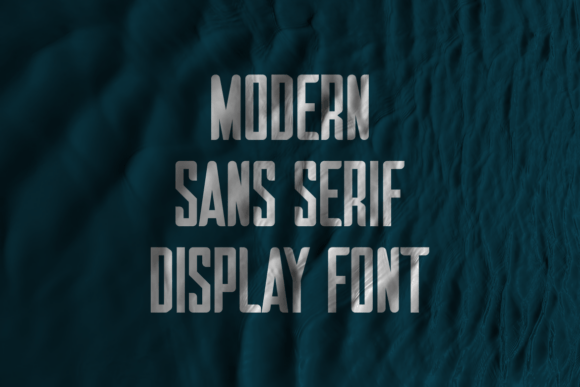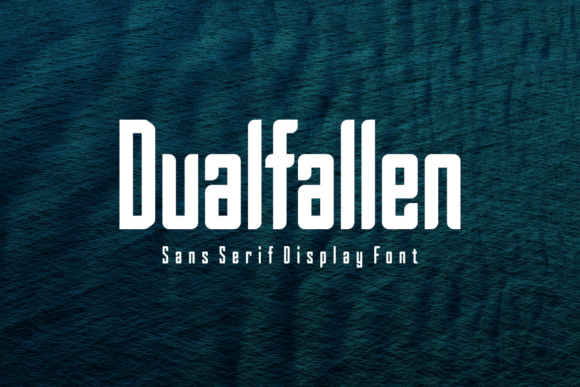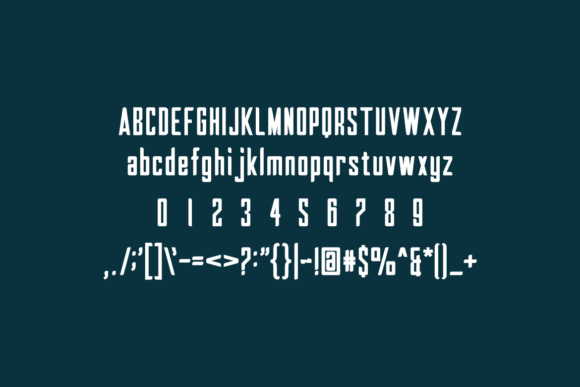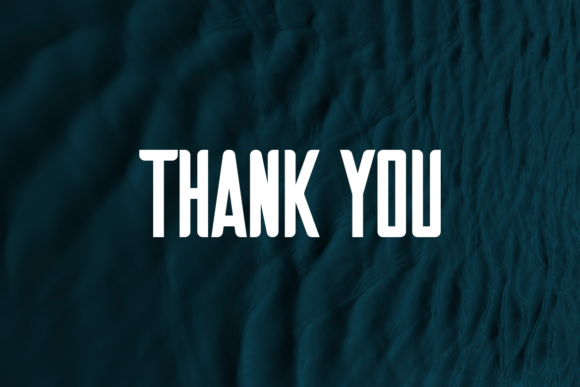
Introducing Dualfallen Font: The Modern Display Font for Bold Branding
In the world of typography, fonts play a crucial role in shaping the identity of a brand. A well-chosen font can elevate a brand’s visual appeal, convey its message, and leave a lasting impression on its audience. If you’re a designer, craftsperson, or brand owner looking for a bold and authentic display font, look no further than Dualfallen Font. In this article, we’ll explore the features, benefits, and uses of Dualfallen Font, and why it’s an excellent choice for your branding projects.
What is Dualfallen Font?
Dualfallen Font is a modern display font designed to make a statement. Its bold and authentic style makes it perfect for branding projects that require a strong visual presence. The font is versatile and can be used in various contexts, from logos and t-shirt printing to posters, billboards, and digital media.
Key Features of Dualfallen Font
- Bold and Authentic Style: Dualfallen Font boasts a bold and authentic style that grabs attention and commands respect.
- Versatility: The font is suitable for a wide range of contexts, including logos, t-shirt printing, posters, billboards, and digital media.
- Easy to Read: Despite its bold style, Dualfallen Font is easy to read, making it perfect for headlines, titles, and short texts.
- High-Quality Design: The font is designed with precision and attention to detail, ensuring a high-quality visual appeal.
Benefits of Using Dualfallen Font
So, why choose Dualfallen Font for your branding projects? Here are some benefits of using this modern display font:
- Stand Out from the Crowd: Dualfallen Font’s bold and authentic style helps you stand out from the competition and grab attention.
- Enhance Brand Identity: The font’s versatility and high-quality design make it an excellent choice for creating a strong brand identity.
- Save Time and Effort: With Dualfallen Font, you can create professional-looking branding materials quickly and easily, saving you time and effort.
- Flexibility: The font can be used in various contexts, from print to digital media, making it a great investment for your branding needs.
Use Cases for Dualfallen Font
Dualfallen Font is suitable for a wide range of branding projects, including:
- Logo Design: Create a bold and memorable logo that represents your brand’s identity.
- T-Shirt Printing: Design eye-catching t-shirts that make a statement.
- Posters and Billboards: Create attention-grabbing posters and billboards that showcase your brand’s message.
- Digital Media: Use Dualfallen Font in your digital media, such as social media graphics, website headers, and email newsletters.
| Font Name | Dualfallen Font |
| Author | artchiles design |
In conclusion, Dualfallen Font is an excellent choice for designers, craftspersons, and brand owners looking for a bold and authentic display font. Its versatility, high-quality design, and ease of use make it perfect for a wide range of branding projects. Whether you’re looking to create a logo, t-shirt, poster, or digital media, Dualfallen Font is sure to elevate your brand’s visual appeal and leave a lasting impression on your audience.